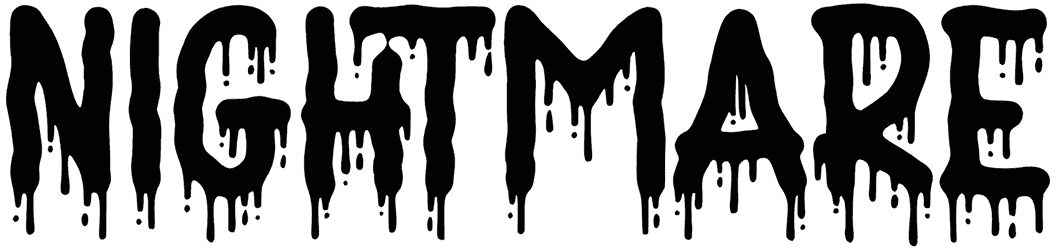
Nightmare Font
If you’re looking for a fancy horror font, Nightmare stands out as a unique choice. Because of its sinister aspect, this dripping font is ideal for usage in advertisements, book covers, and other promotional materials for horror-related events.